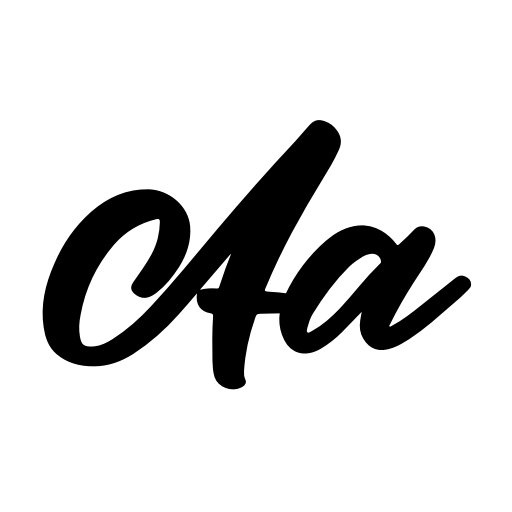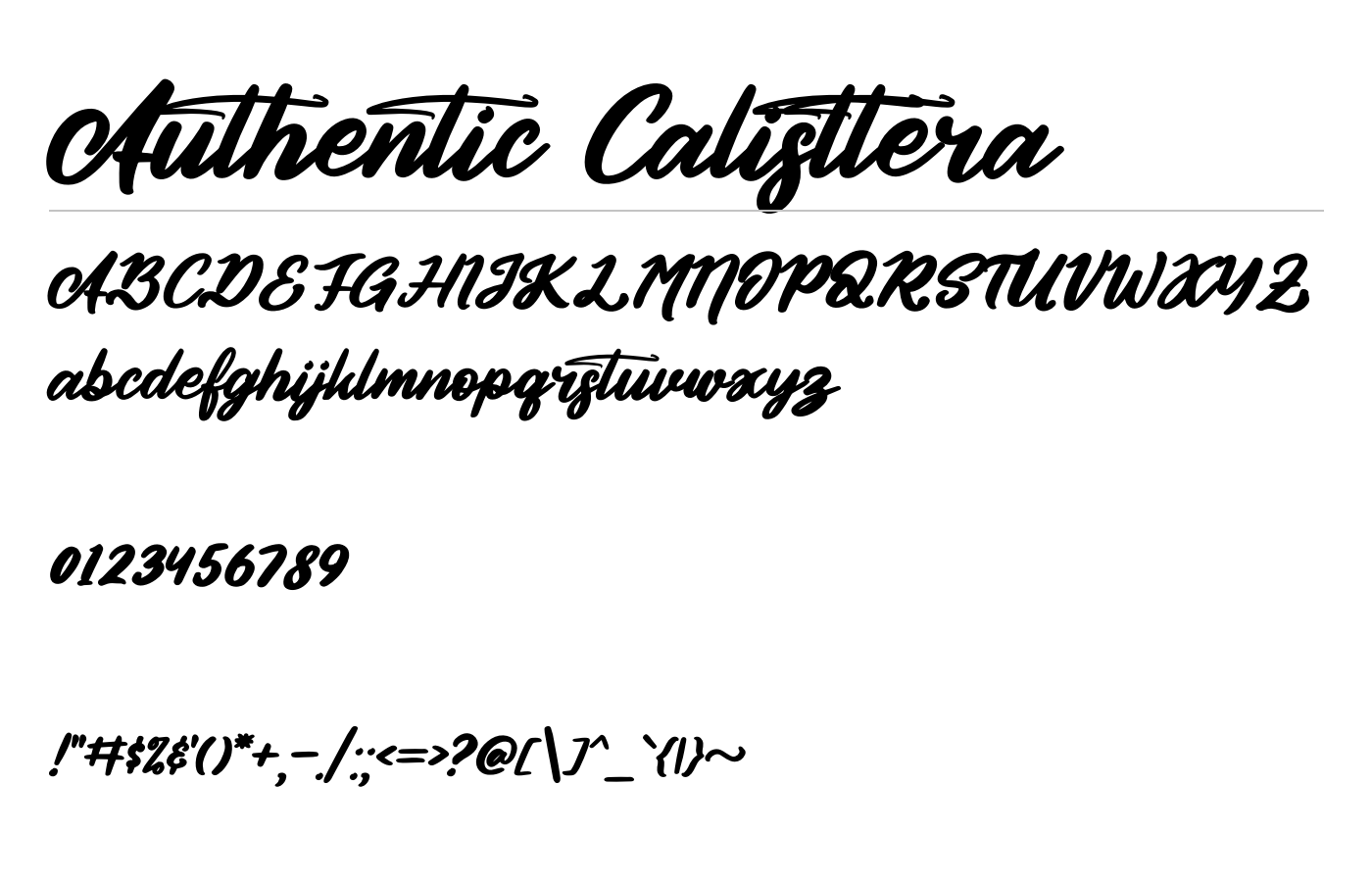
Authentic Calisttera is a bold, script-style font with a smooth, flowing design that mimics natural handwriting. Its thick strokes and elegant swashes give it a lively yet polished feel, making it perfect for branding, logos, invitations, or headlines that want to convey a personal and stylish touch. This font works well in creative and fashion contexts where a warm, authentic vibe is desired.
Authentic Calisttera Font
About Authentic Calisttera Font